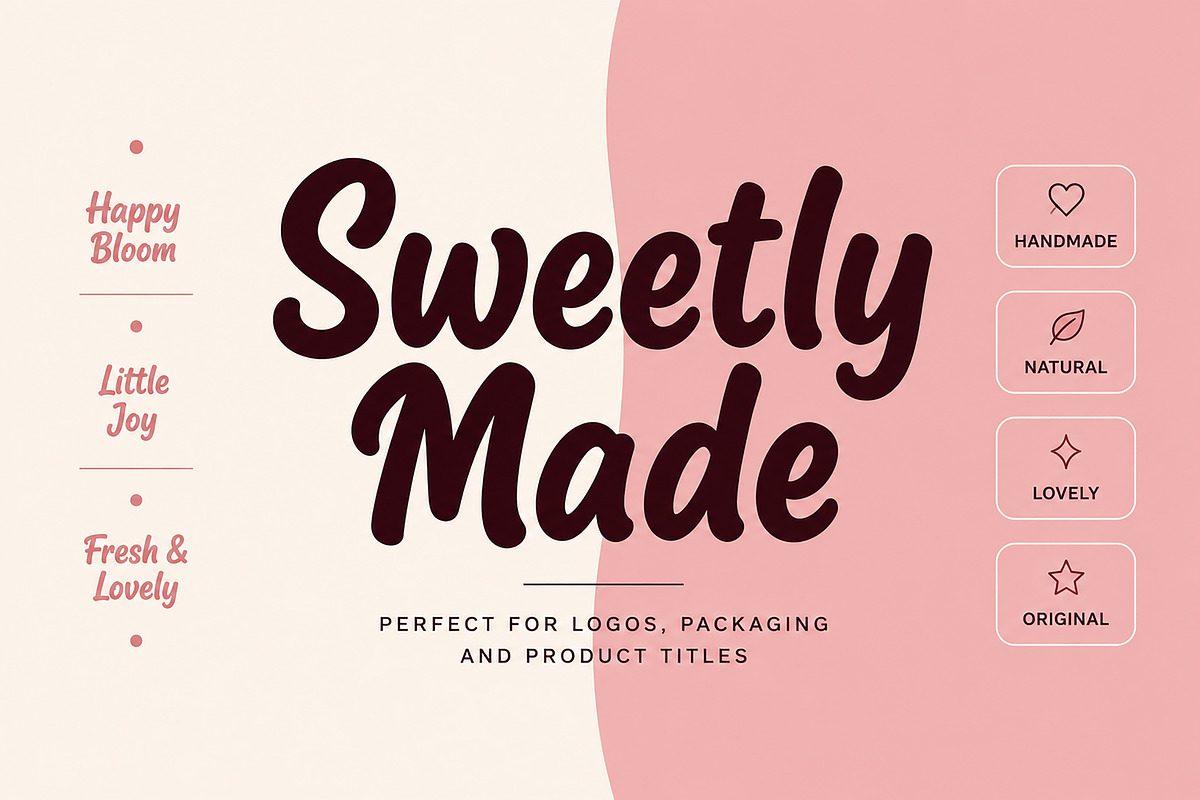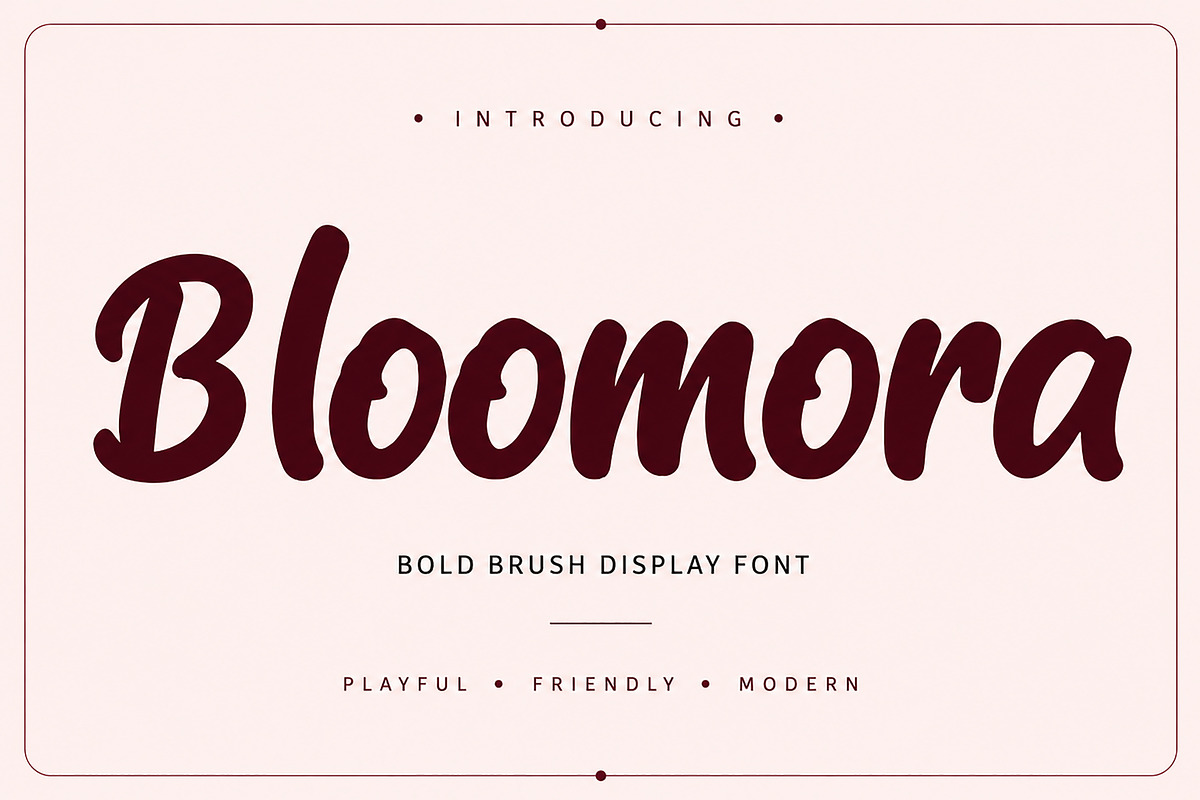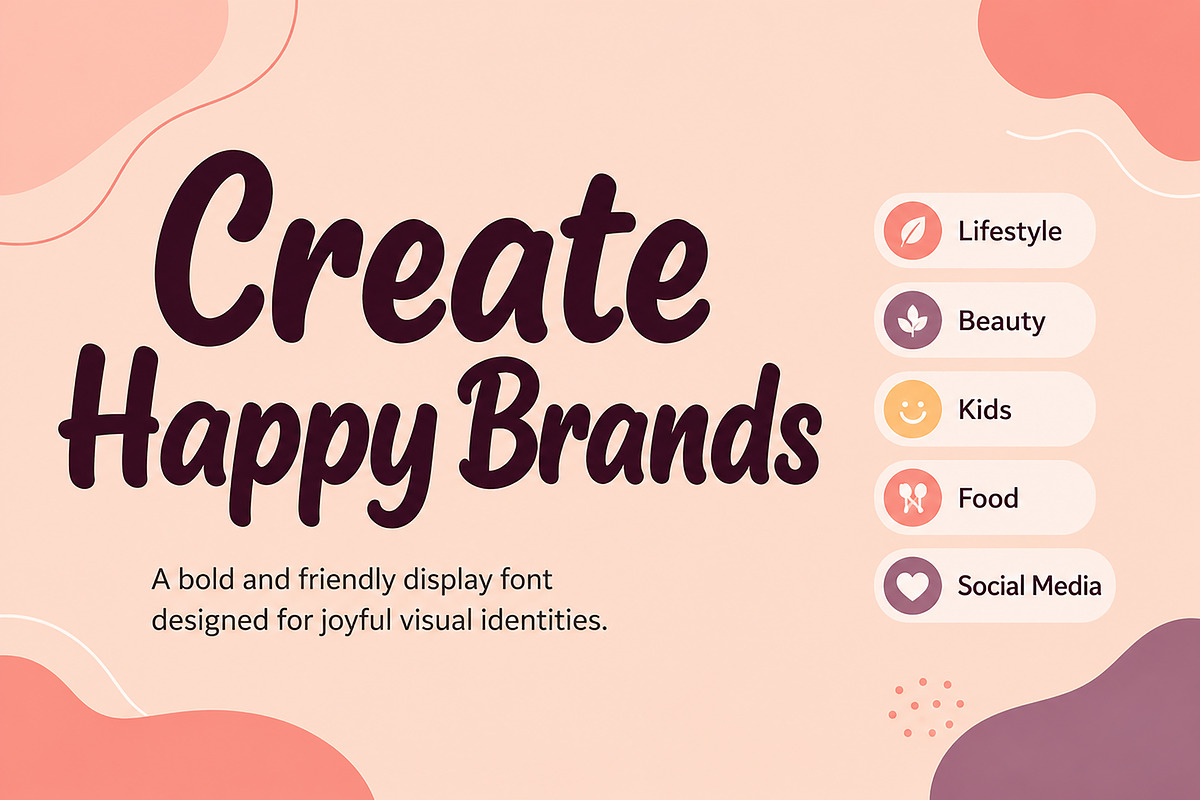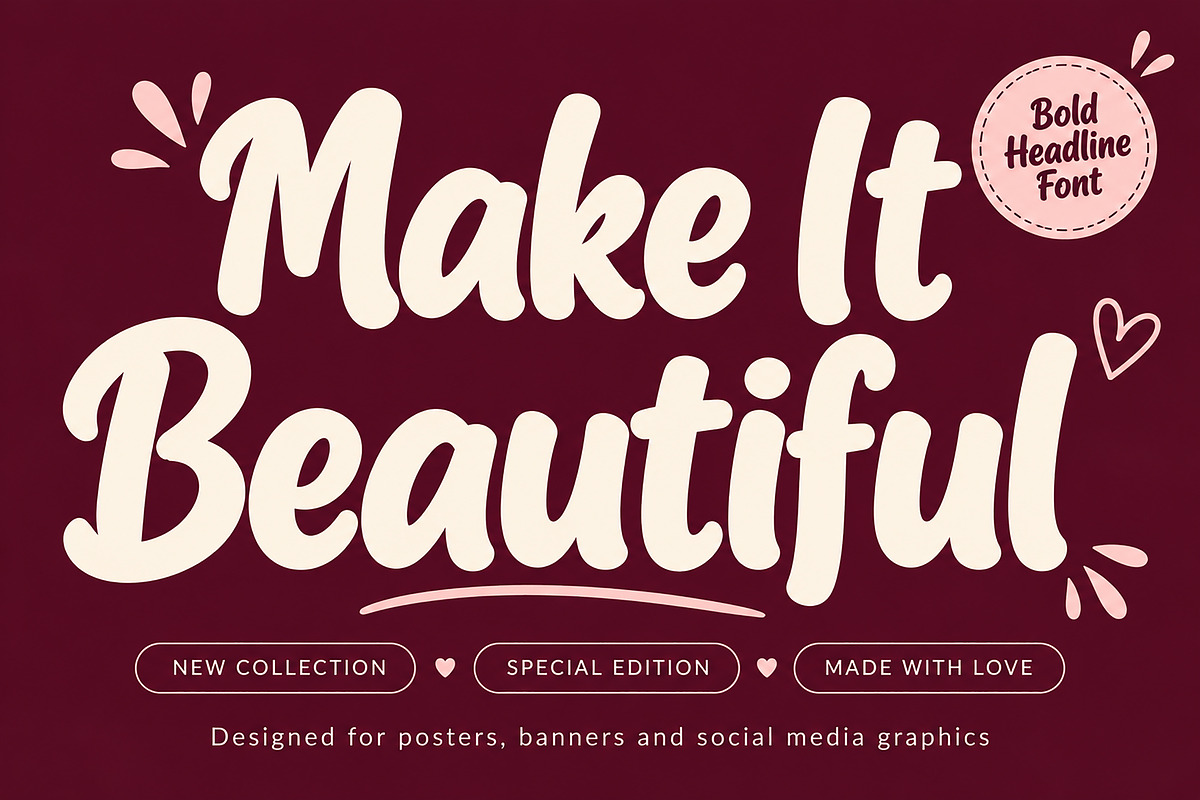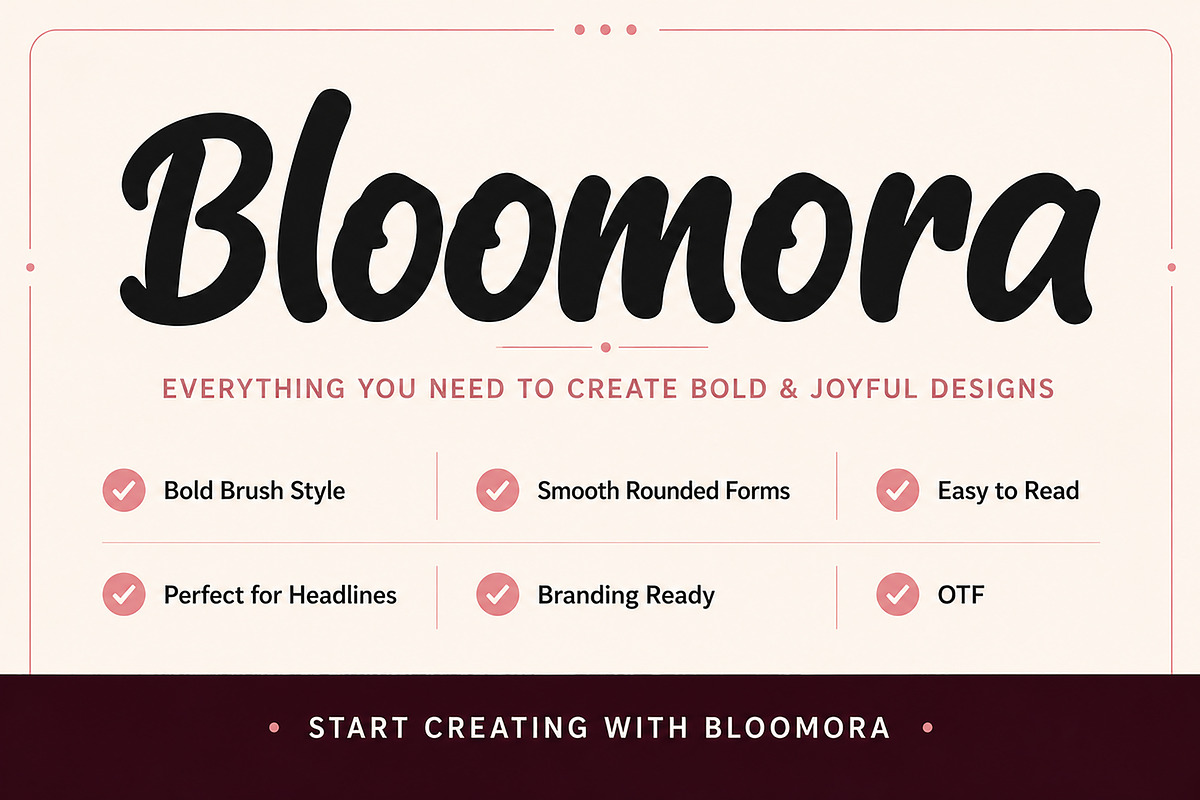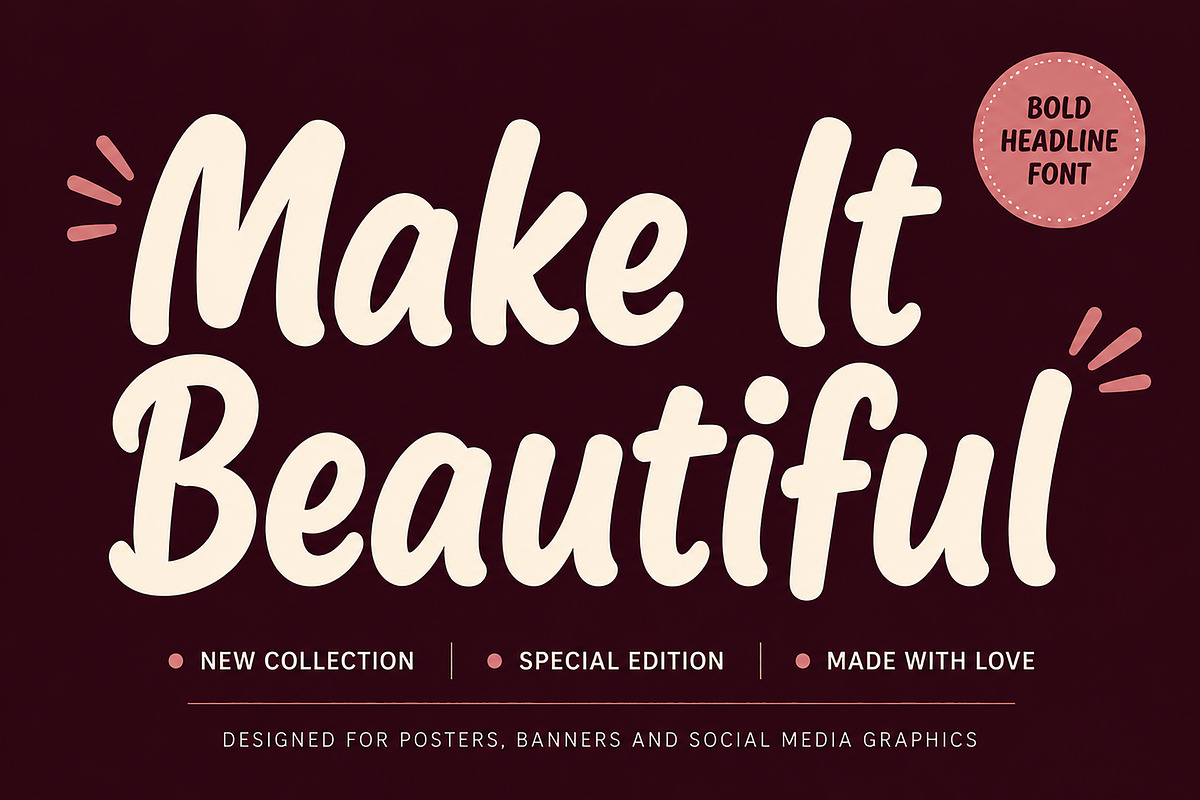
Bloomora
Bloomora – Bold Brush Display Font
Bloomora is a bold, playful brush display font designed to make your headlines stand out with confidence. Its smooth rounded letterforms and friendly personality make it an excellent choice for branding, packaging, logos, social media graphics, posters, product titles, and eye-catching marketing materials.
Whether you're creating a modern lifestyle brand, beauty packaging, food branding, kids' products, or creative social media content, Bloomora delivers a clean, bold, and joyful look that instantly grabs attention.
Designed with simplicity and readability in mind, Bloomora works beautifully in large sizes where personality matters most.
Logos
Branding
Product Labels
Posters
Headlines
Advertising
Stickers
T-Shirt Design
Beauty Brands
Food & Beverage Branding
Kids Products
Lifestyle Brands
Creative Projects
Bold Brush Display Style
Smooth Rounded Letterforms
Easy to Read
Modern & Playful Design
Perfect for Large Headlines
Branding Ready